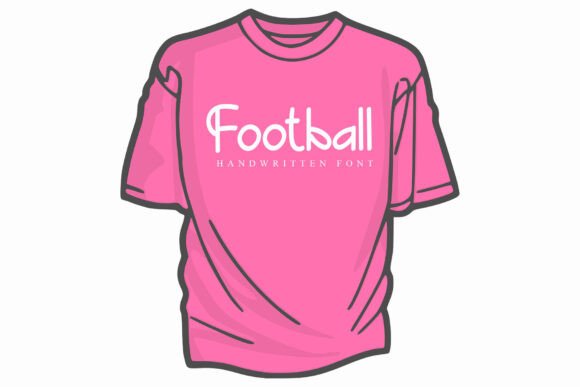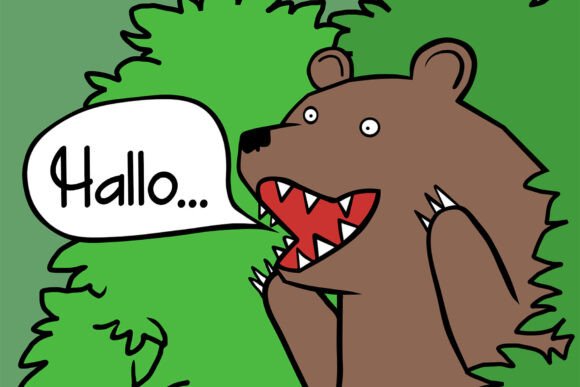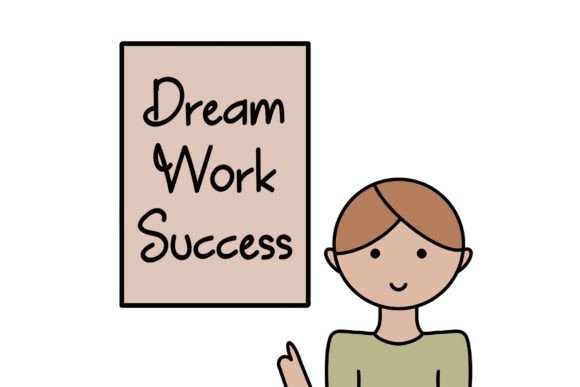
Introduction to History Teacher Font
History Teacher is a unique and elegant font specially designed just for you.
This font is made with a professional hand touch and is perfect for your projects This font is very suitable for use in your work projects, all greeting cards from wedding invitation cards, birthdays, all types of parties.
Why Choose History Teacher Font?
History Teacher Font offers exceptional quality and versatility, making it a valuable addition to your design toolkit. Whether you’re creating for personal projects or commercial use, History Teacher Font delivers professional results.